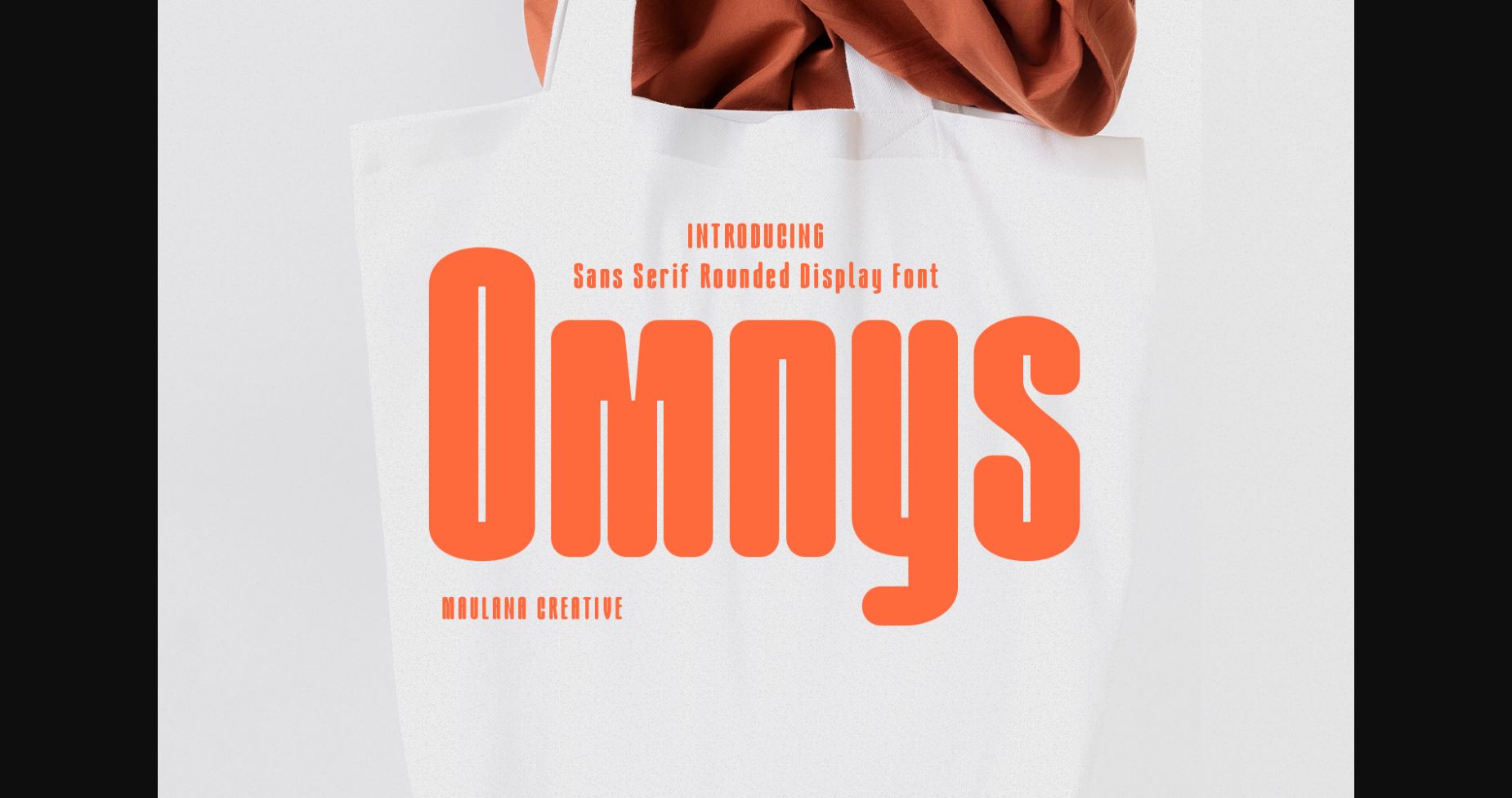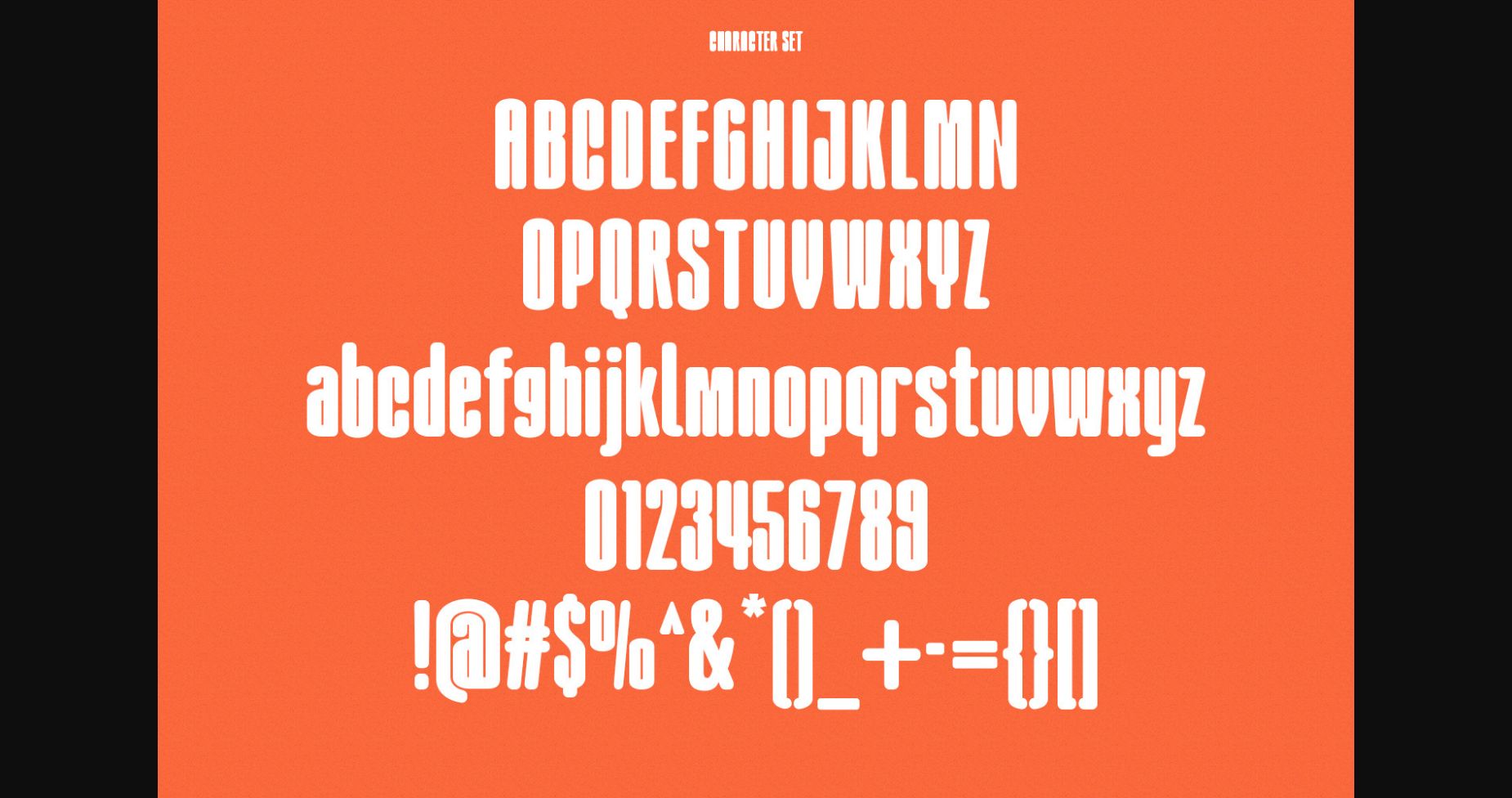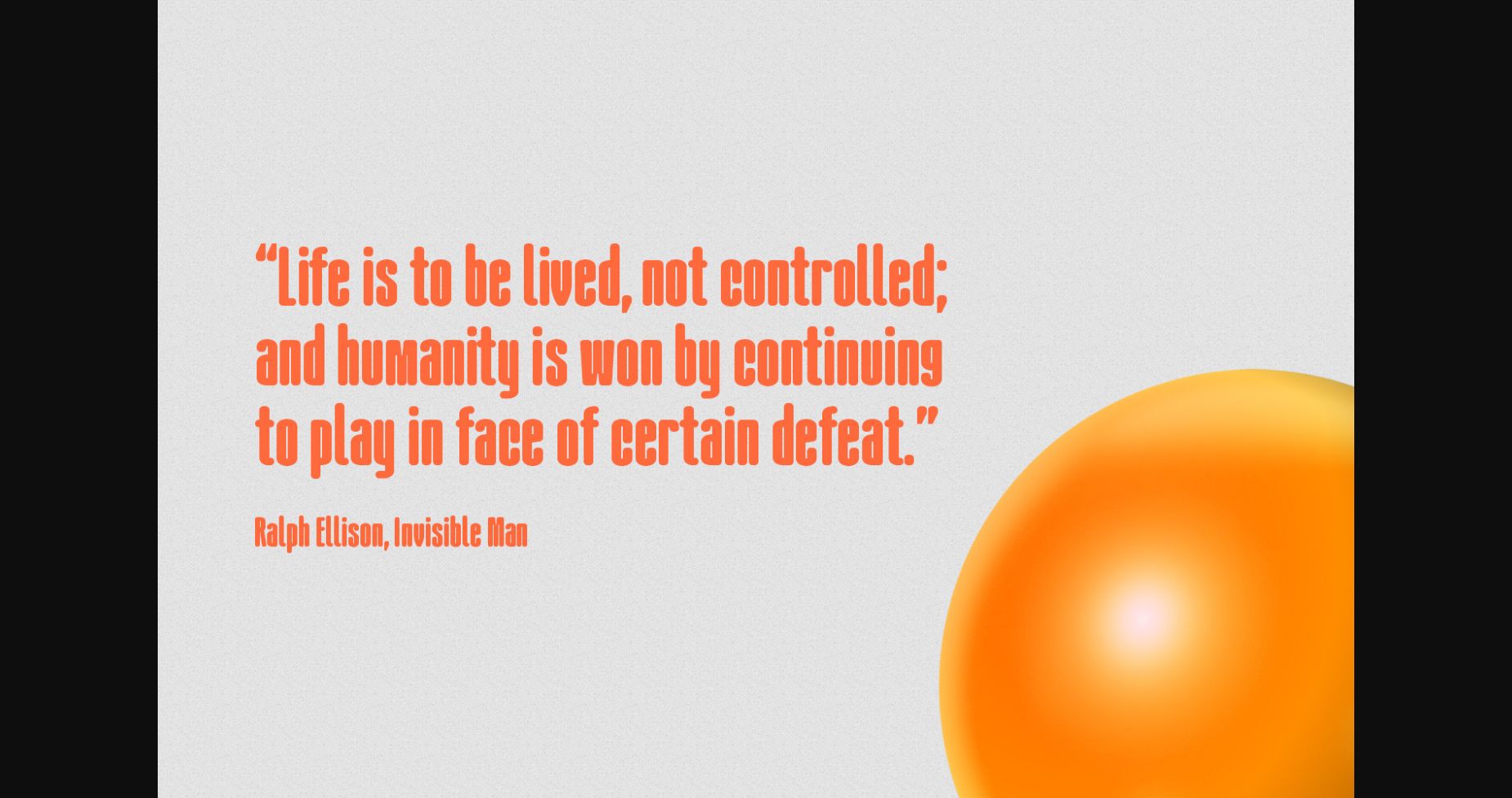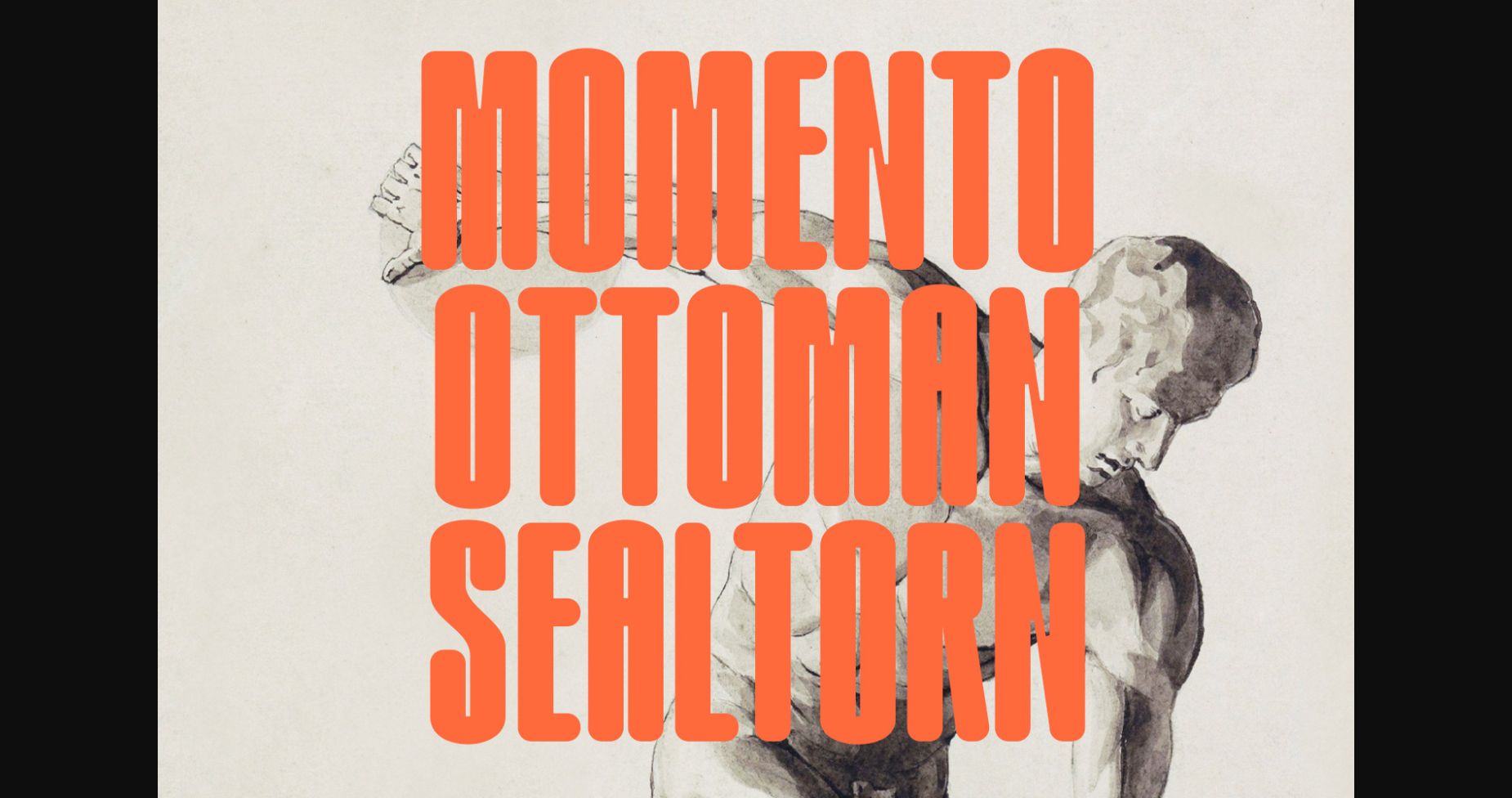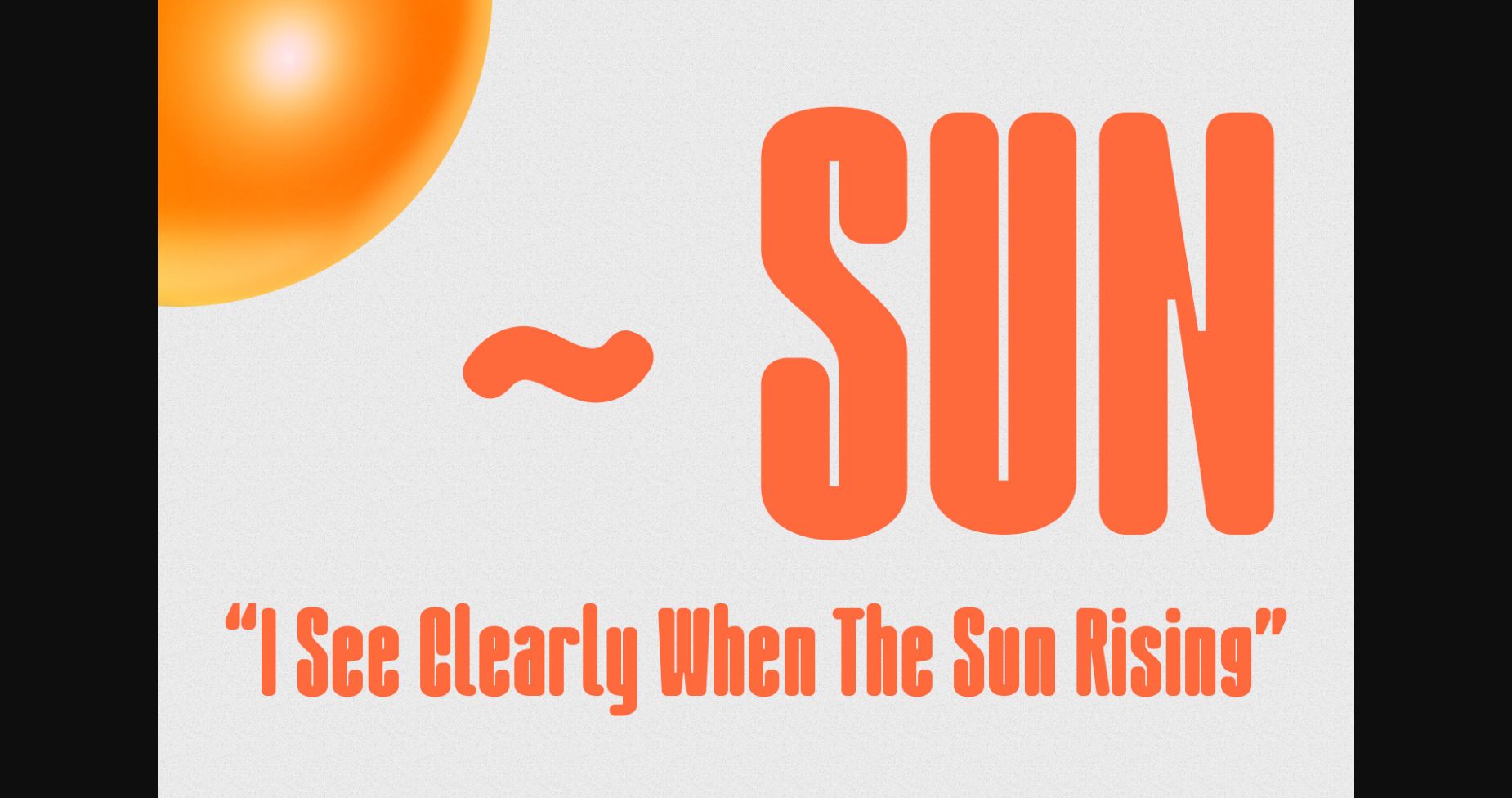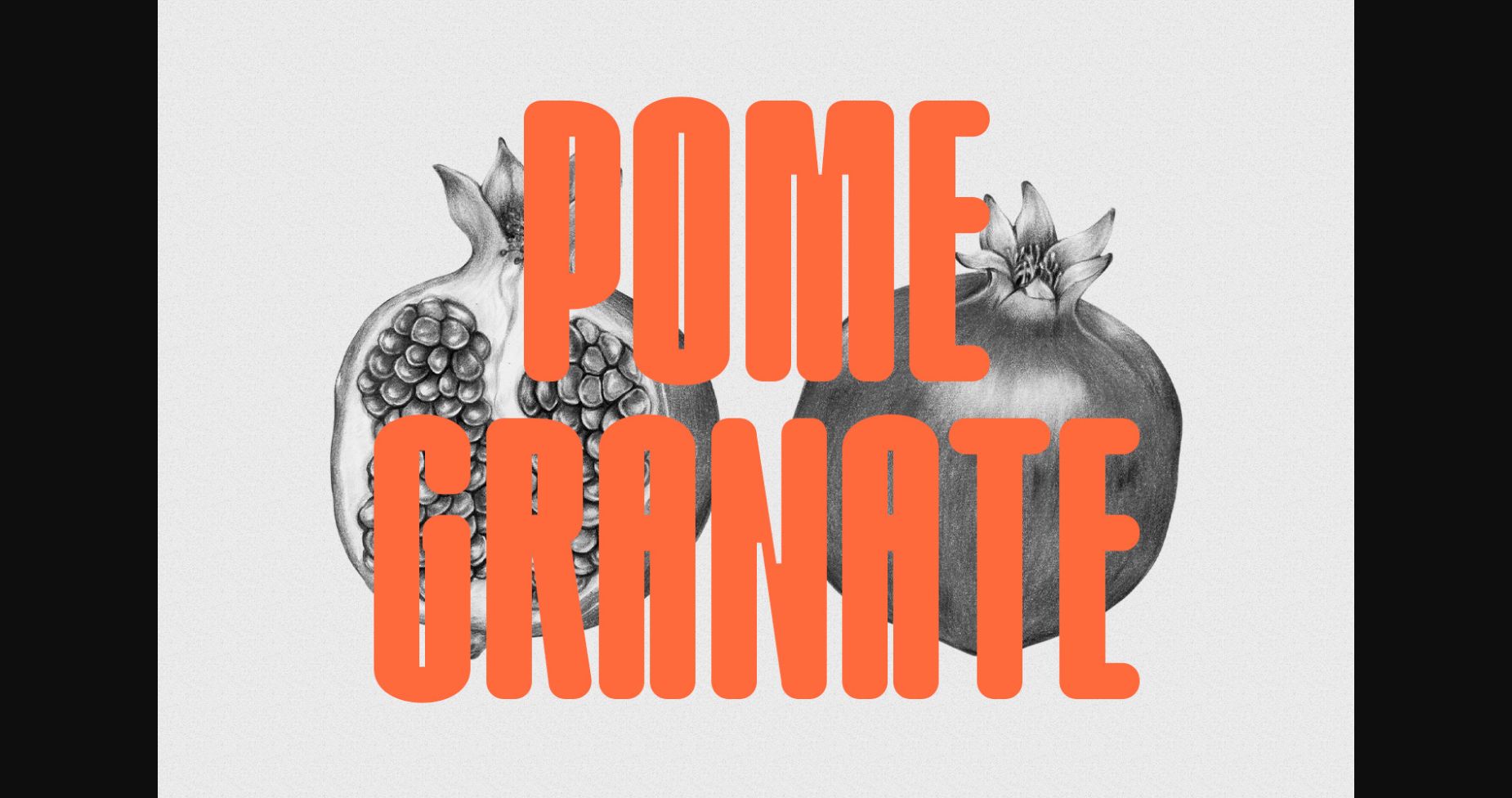
About Omnys Font
Omnys is a modern and unique sans serif font that features distinctive. It’s ideal for modern designs, digital media, and advertising that require a fresh, unconventional look. Its unique design creates a striking and memorable look, making it a great choice for projects that demand a one-of-a-kind design.